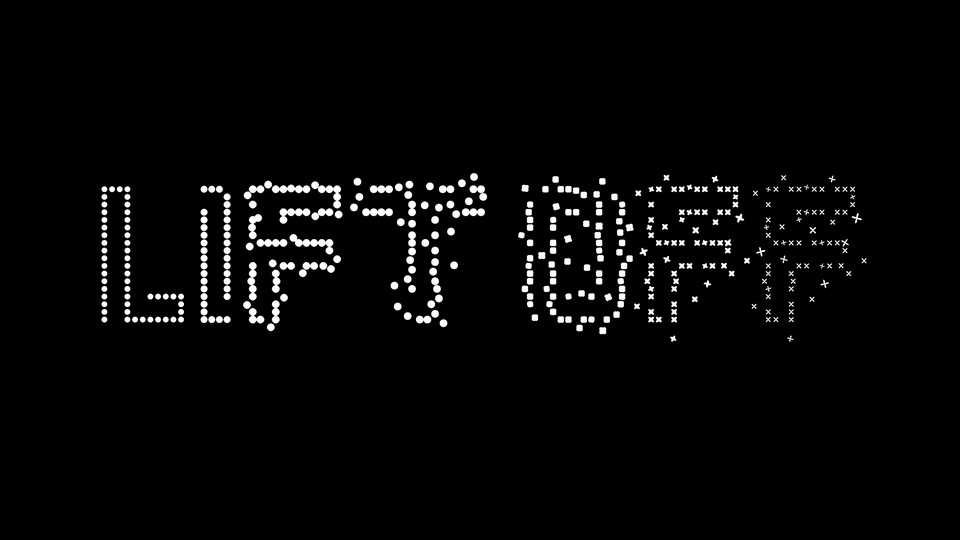
Download Lift Off font, a grid-based modular sans serif typeface. Lift Off font is loosing it’s legibility and changing into dust on variable axis.
Designer: Ada Krawczak